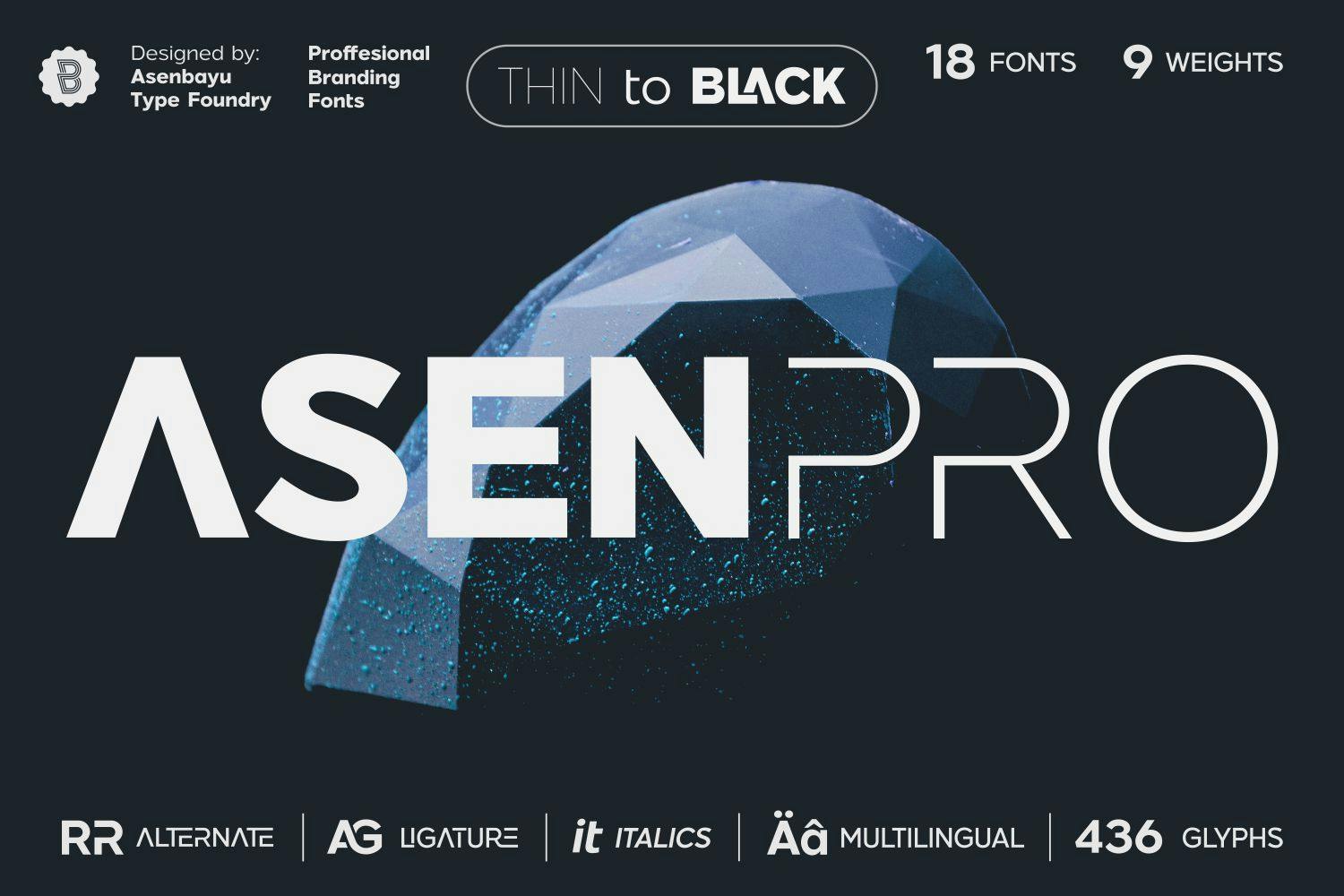
Asen Pro - Sans Serif Fonts
The Asen Pro - Sans Serif Fonts are perfect for corporate branding, modern website design, tech startup logos, minimalist packaging, professional presentations, editorial layouts, mobile app interfaces, and contemporary architectural signage.
What makes Asen Pro - Sans Serif Fonts so exciting is their perfect synthesis of contemporary design principles with timeless functionality that creates truly versatile typography for modern communication needs. This exceptional font family features clean geometric forms with subtle humanist characteristics that bring warmth and approachability to professional designs. The fonts' carefully refined letterforms demonstrate meticulous attention to detail, with optimized spacing, proportions, and weight distribution that ensure exceptional readability across all media and applications. Their sophisticated character makes them ideal for brands seeking to communicate innovation, reliability, and forward-thinking vision while maintaining professional credibility and universal appeal that resonates with diverse global audiences.
The Asen Pro - Sans Serif Fonts family includes an extensive collection of weights and styles designed to meet comprehensive typography requirements for complex design systems. The collection typically features nine weights ranging from Thin to Black, each available in regular and italic variations, totaling eighteen distinct styles. Many versions include condensed and extended width options, advanced OpenType features, stylistic alternates, professional ligatures, and multilingual character sets supporting over 200 languages for international branding and global communication projects.
The fonts' technical precision ensures consistent performance in both digital and print environments, from mobile screens to large-scale environmental graphics. Their carefully engineered metrics, kerning, and hinting provide professional results automatically, while the extensive weight range offers unlimited creative possibilities for establishing clear visual hierarchies and brand differentiation.
Leading design agencies, Fortune 500 companies, and creative professionals worldwide trust this comprehensive sans serif family for their most important brand communications and design projects. Whether developing complete brand systems, creating user interfaces for digital products, or designing editorial layouts for publications, these fonts deliver the perfect combination of contemporary style, functional excellence, and professional reliability.